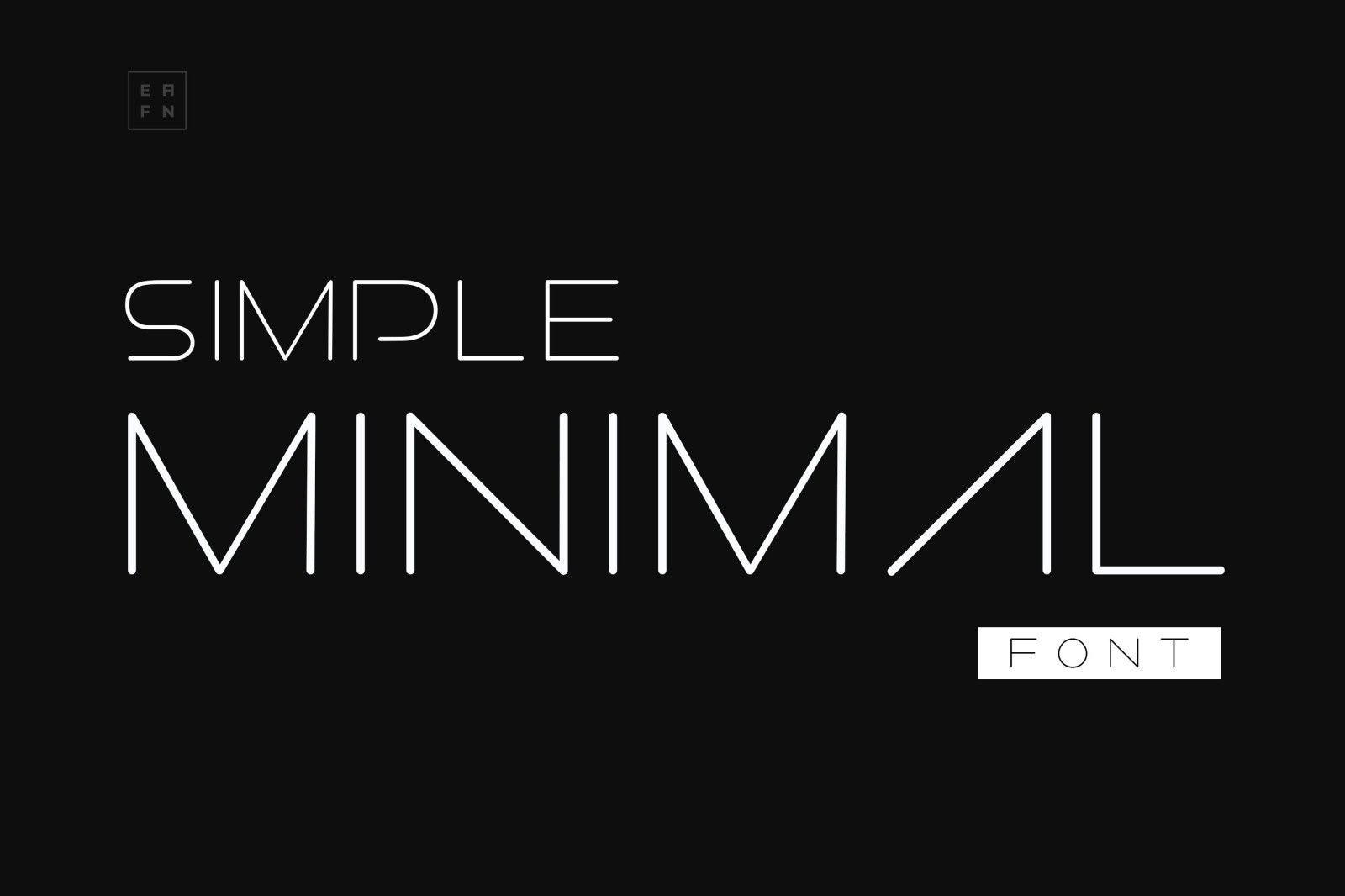
Gravity Typeface
Gravity Typeface is a stunning modern typeface that boasts clean lines, sharp edges, An extremely versatile font, gravity is perfect for logos, weddings, invitations, quotes, advertisements, print, magazines, and more!
What really makes Gravity a special font is the small caps (available via the lowercase letters). Each small cap is the same thickness as the uppercase letters, making it super easy to create gorgeous logos and emphasizing text
Gravity Typeface is perfect for designs that need to have a traditional, antique feel while still being sleek and minimalist. It will look fantastic with any logo, product name, poster, or design.
When describing it, words like elegant, minimal, classy, and modern come to mind. Itβs great for fashion, clothing styles, signatures, album covers, magazines, social media, and advertisements, among other things. This font has 200 above glyphs and extensive Latin script support and upper and lowercase sans serif characters. gravity carries a powerful, unique, and social character line with a premium finish, giving a new impression.